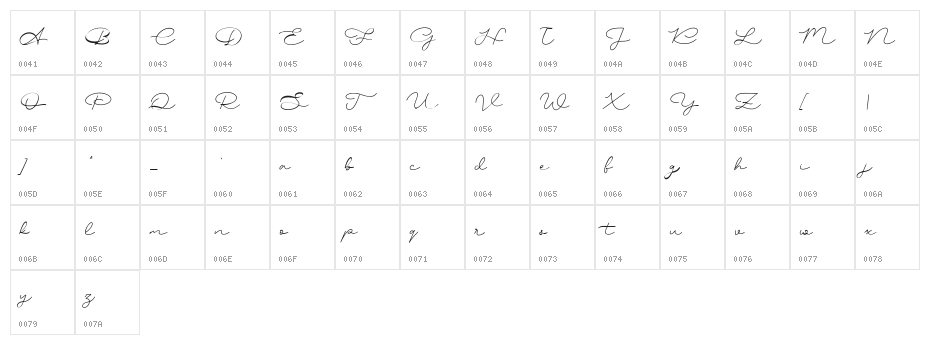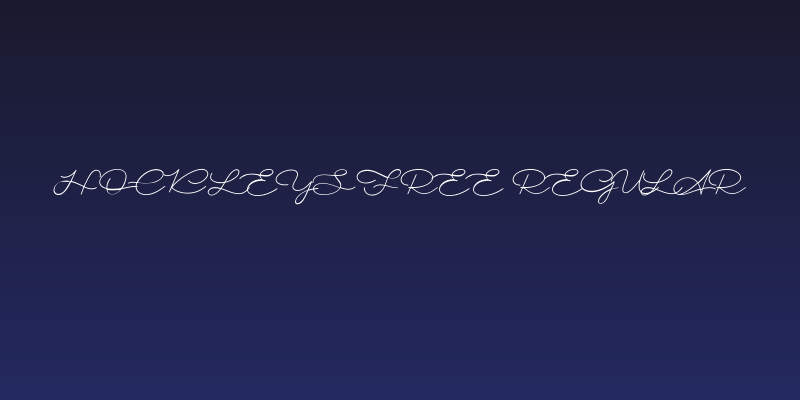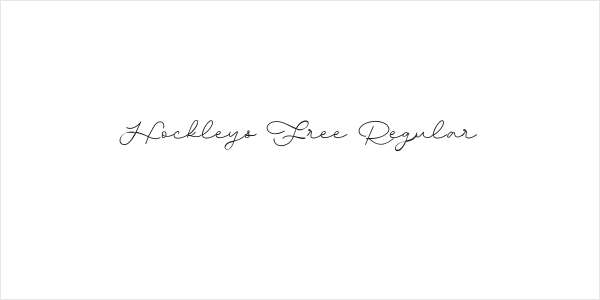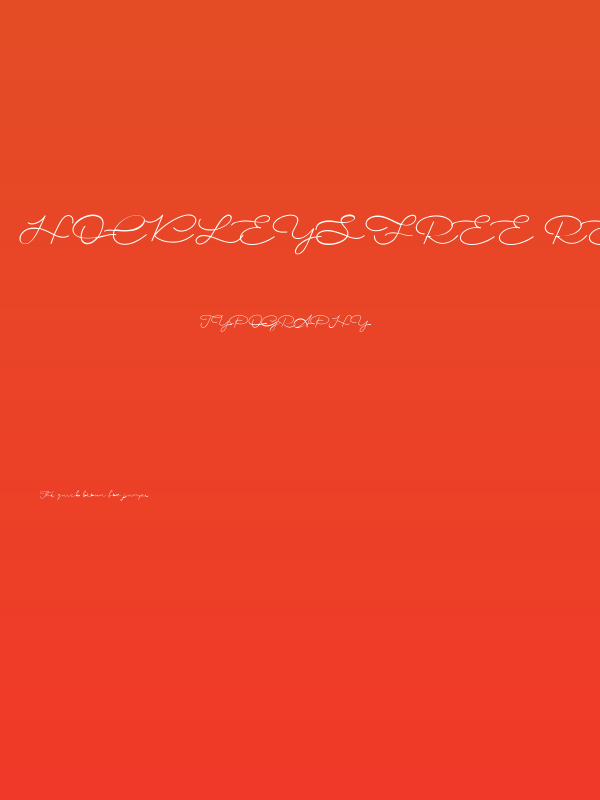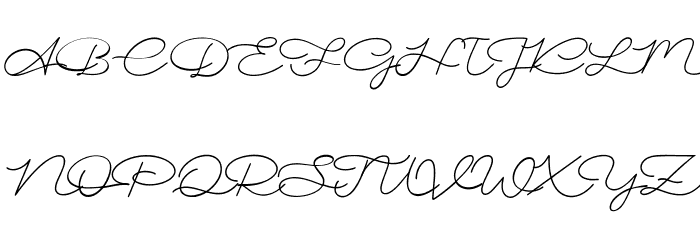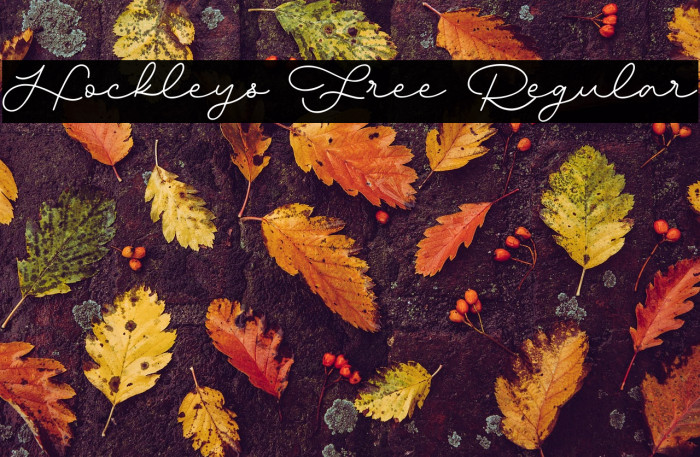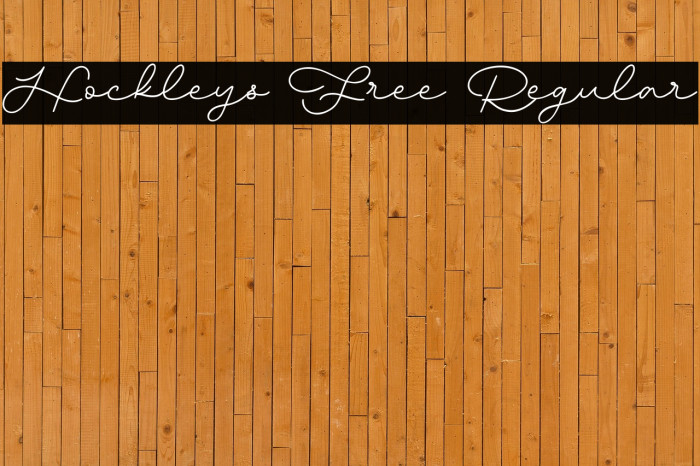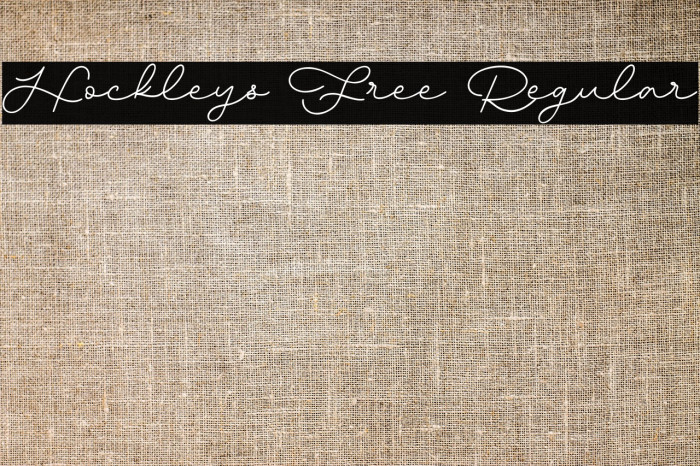
Hockleys Free Regular Font
Hockleys Free Regular Description
This font features a flowing, cursive style with elegant loops and swashes, giving it a handwritten appearance. The letters are interconnected, creating a seamless and fluid look. The uppercase letters are ornate, with exaggerated flourishes, while the lowercase letters maintain a consistent, smooth flow. The overall design is delicate and sophisticated, making it suitable for formal and decorative applications. The font's thin strokes and consistent line weight contribute to its graceful and airy aesthetic.
| Proposed Projects | Ideal for wedding invitations, greeting cards, elegant branding, and personal stationery. |